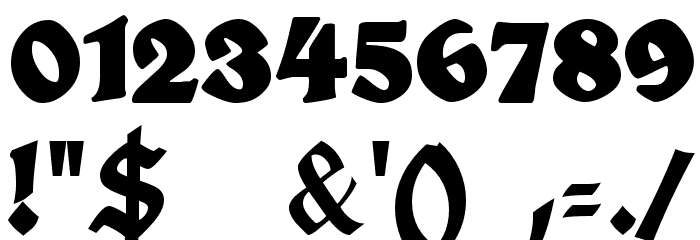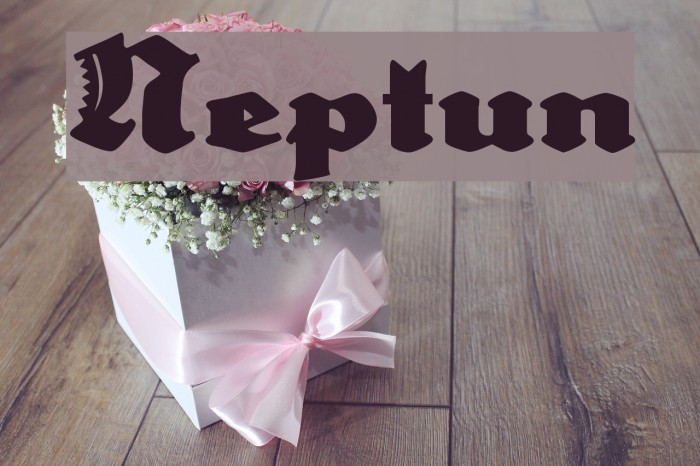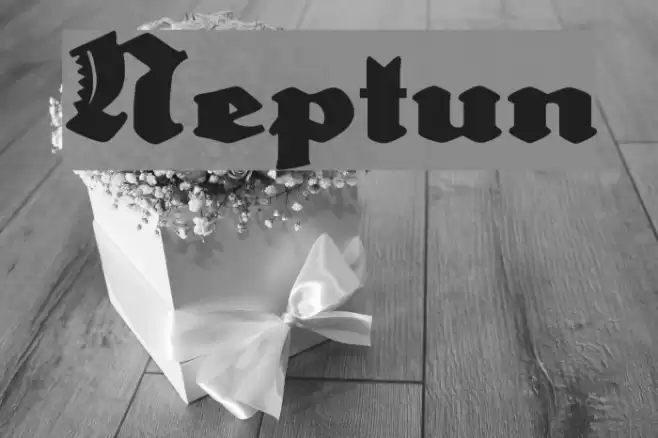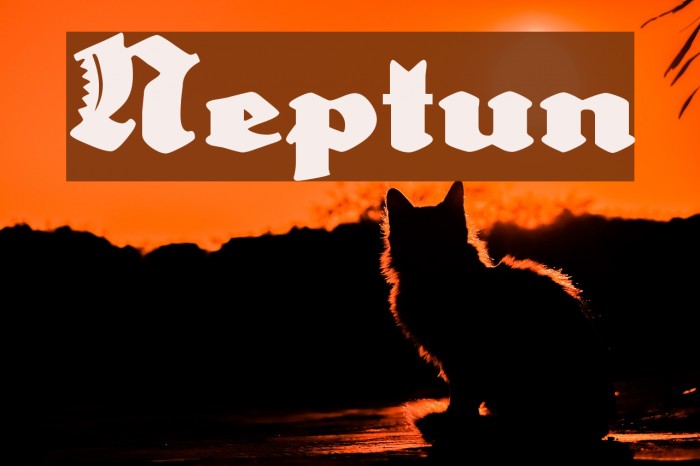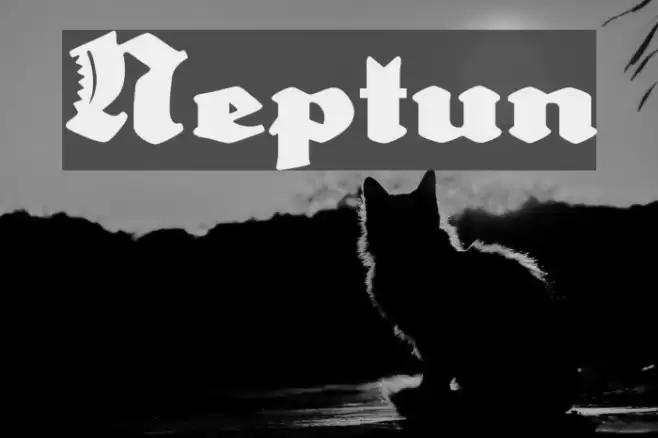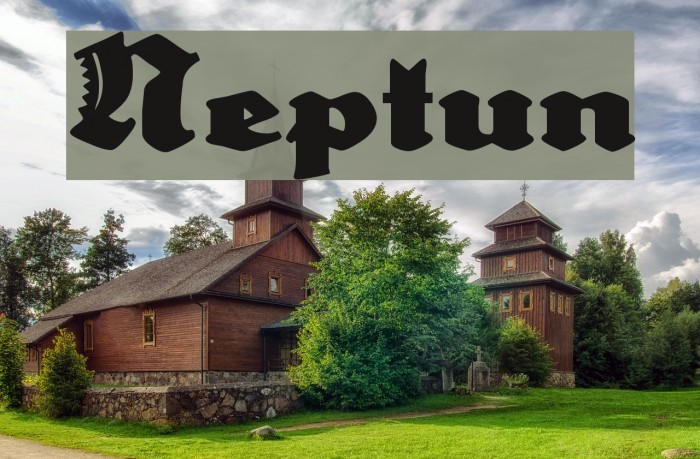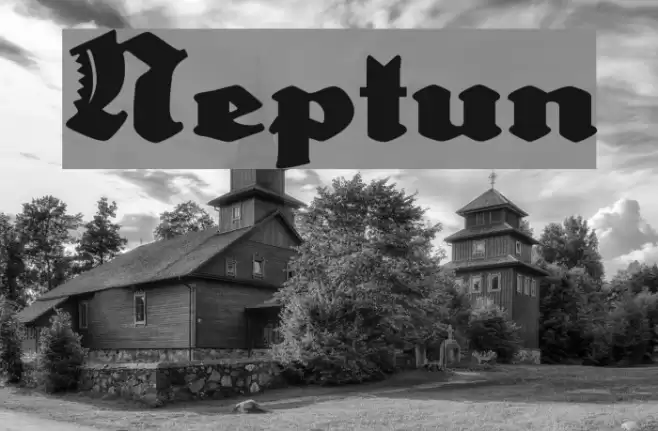
Neptun Font
Neptun Description
This font exhibits a bold and dramatic style, characterized by its thick, angular strokes and sharp edges. The uppercase letters have a strong presence with intricate details, while the lowercase letters maintain a consistent weight and structure. The numerals are equally bold, ensuring readability and impact. Special characters are designed to match the overall aesthetic, adding a cohesive look to any text. This font's unique style is reminiscent of traditional Blackletter typefaces, offering a historical and authoritative feel.
| Overall Style | Vintage |
| Proposed Projects | Ideal for projects that require a historical or authoritative feel, such as book covers, posters, branding for traditional products, or any design that seeks to evoke a sense of history and strength. |